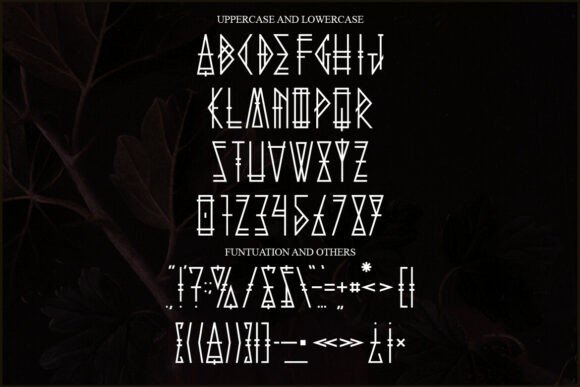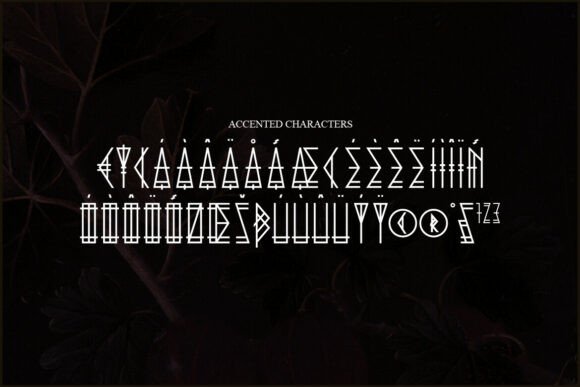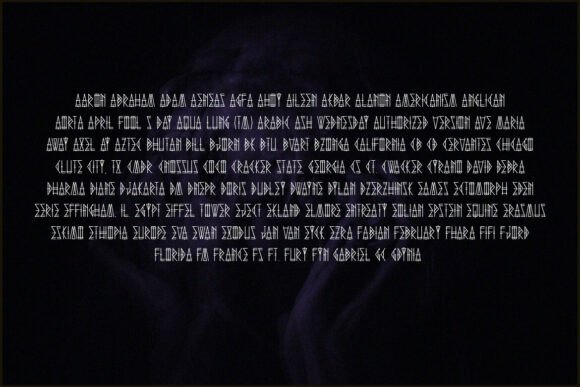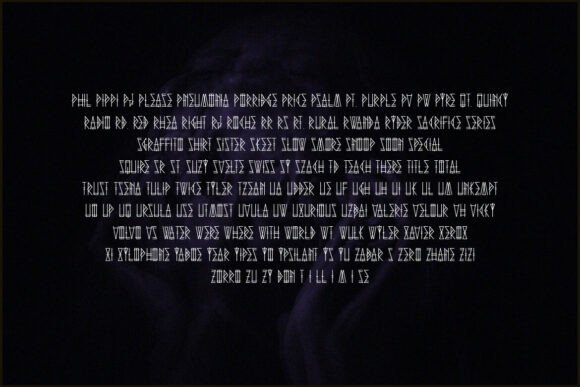
Introduction to Megalomaniac Font
This Megalomaniac font is inspired by Dark Horror vibe.
Megalomaniac font is perfect for badges, branding, labels, apparel, headlines, signage, logo, quote, apparel and other creative applications .
Key Features of Megalomaniac Font